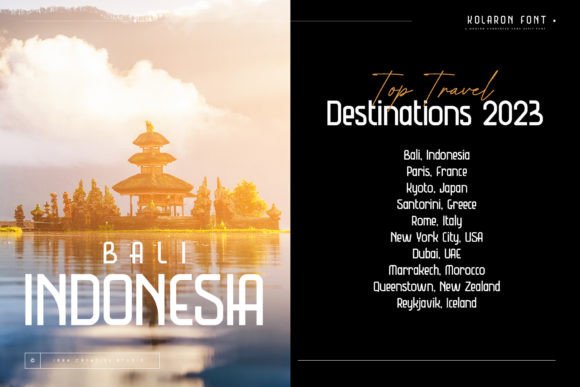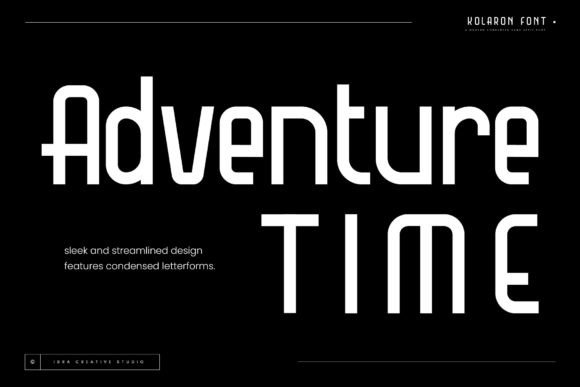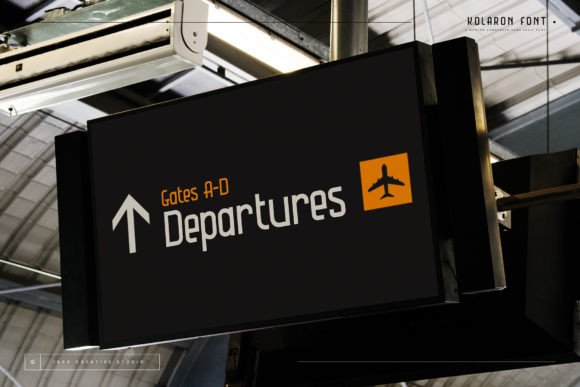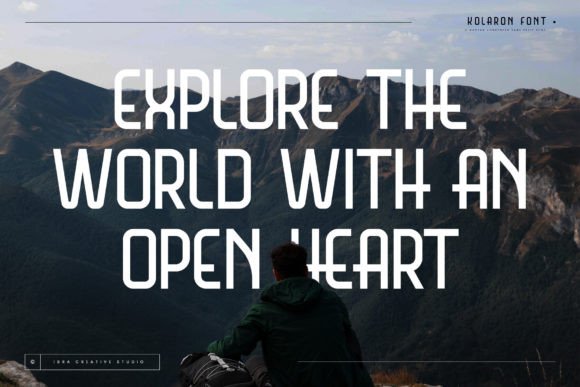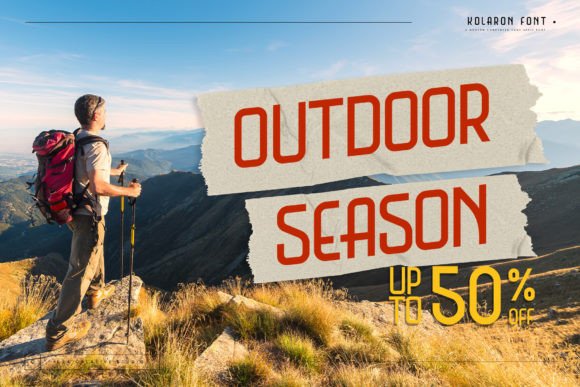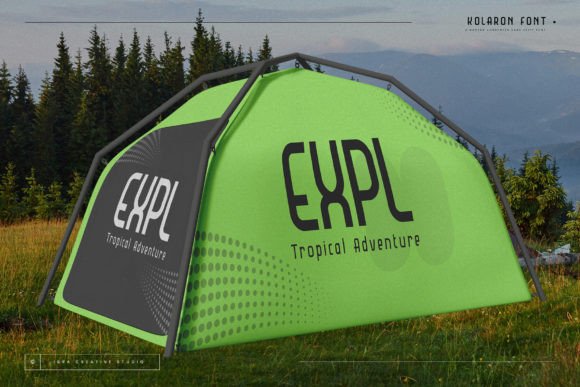
Introduction to Kolaron Font
Remember that moment when you’re working on a creative project, and the perfect font is the missing piece that brings everything together? You’ve spent hours searching for the right design resource, only to stumble upon a font that elevates your entire concept. For designers, finding the perfect font is a game-changer – it can make or break the aesthetic of a project. And, we’re excited to introduce you to a font that’s sure to become a staple in your design arsenal: the Kolaron Font.
With its sleek and streamlined design, the Kolaron Font effortlessly blends sophistication with modernity, making it an ideal choice for projects where legibility and style are paramount. Its clean lines and geometric shapes contribute to a polished and professional appearance, making it versatile for a range of applications, from corporate branding to editorial design.
Key Features of Kolaron Font
- Comes in a variety of styles and weights, making it a versatile design resource for various creative projects
- Includes a comprehensive character set, covering a wide range of languages and alphabets
Honest Review: Kolaron Font
I recently stumbled upon the Kolaron Font, and I must say, it’s a great addition to any designer’s toolkit. As a design resource, it’s perfect for creative projects that require a touch of elegance.
- ✨ The Kolaron Font offers a high-quality, sleek design that’s sure to elevate any design project.
- ⚠️ The font may not be suitable for projects that require a bold or playful tone.
- ⚠️ Some users may find the font to be a bit too minimalist.
Overall, I’m impressed with the Kolaron Font. It’s a solid design resource that can add a touch of sophistication to any creative project. While it may have its limitations, it’s definitely worth considering for your next design project.
Kolaron Font is a high-quality, free design resource ideal for creative projects. With its unique style and versatility, this font is perfect for designers looking for a fresh and modern look.
Kolaron Font is perfect for various creative projects, including graphic design, branding, and digital art. Its versatility and high quality make it an ideal choice for designers and artists looking for a unique and modern look.